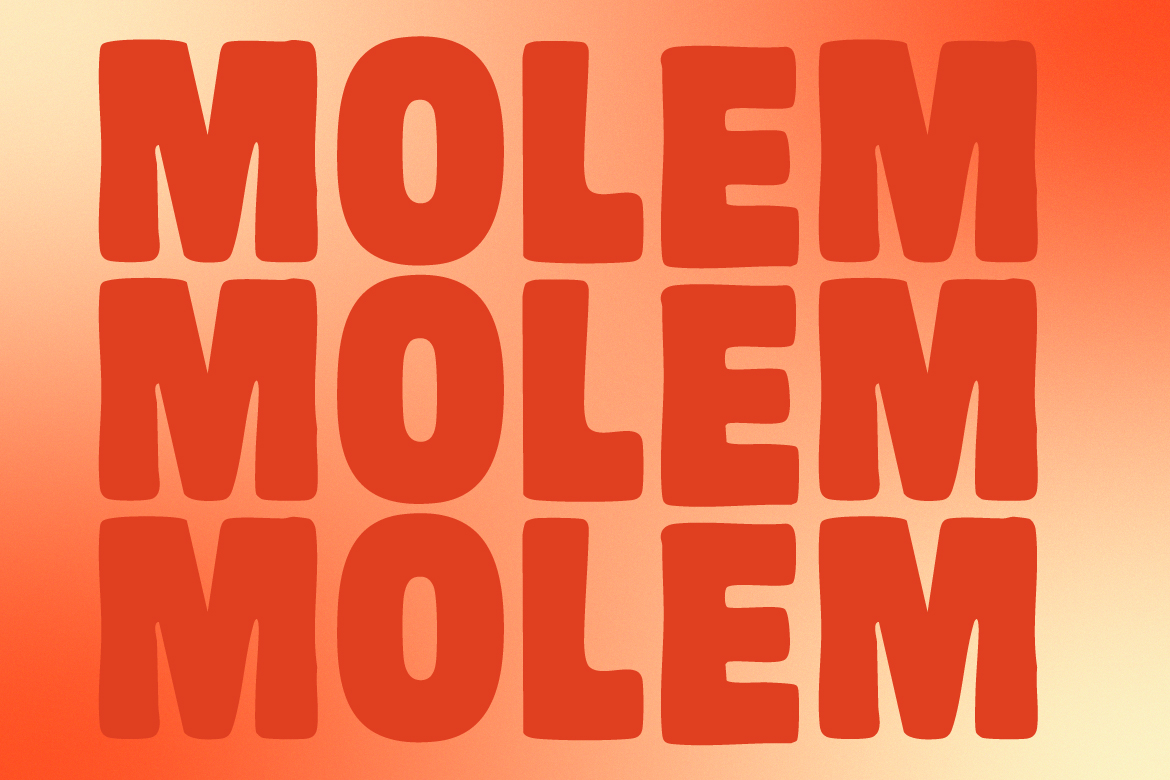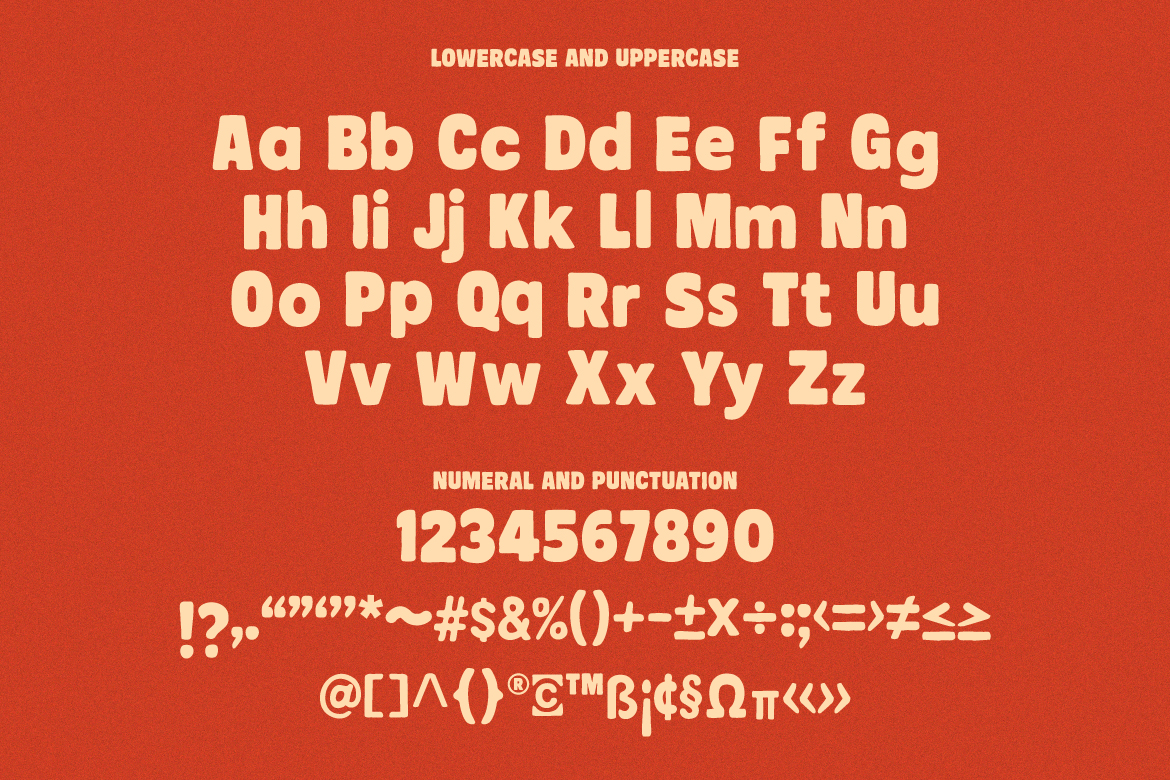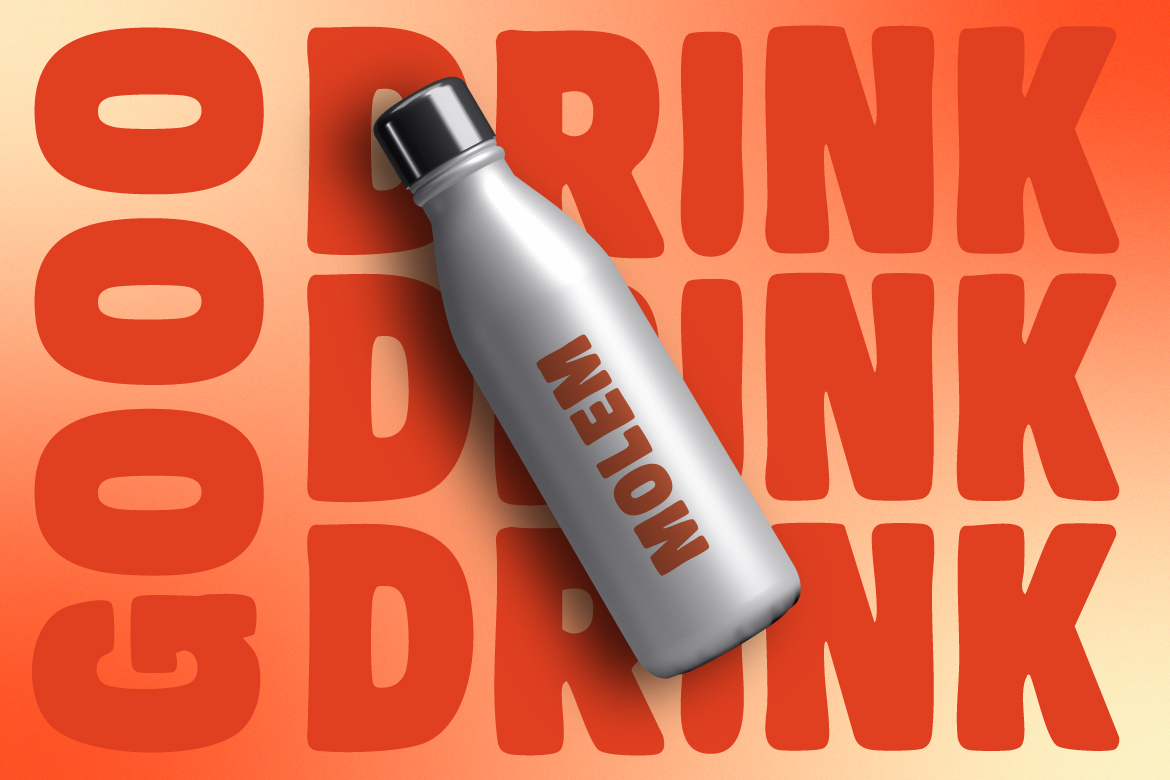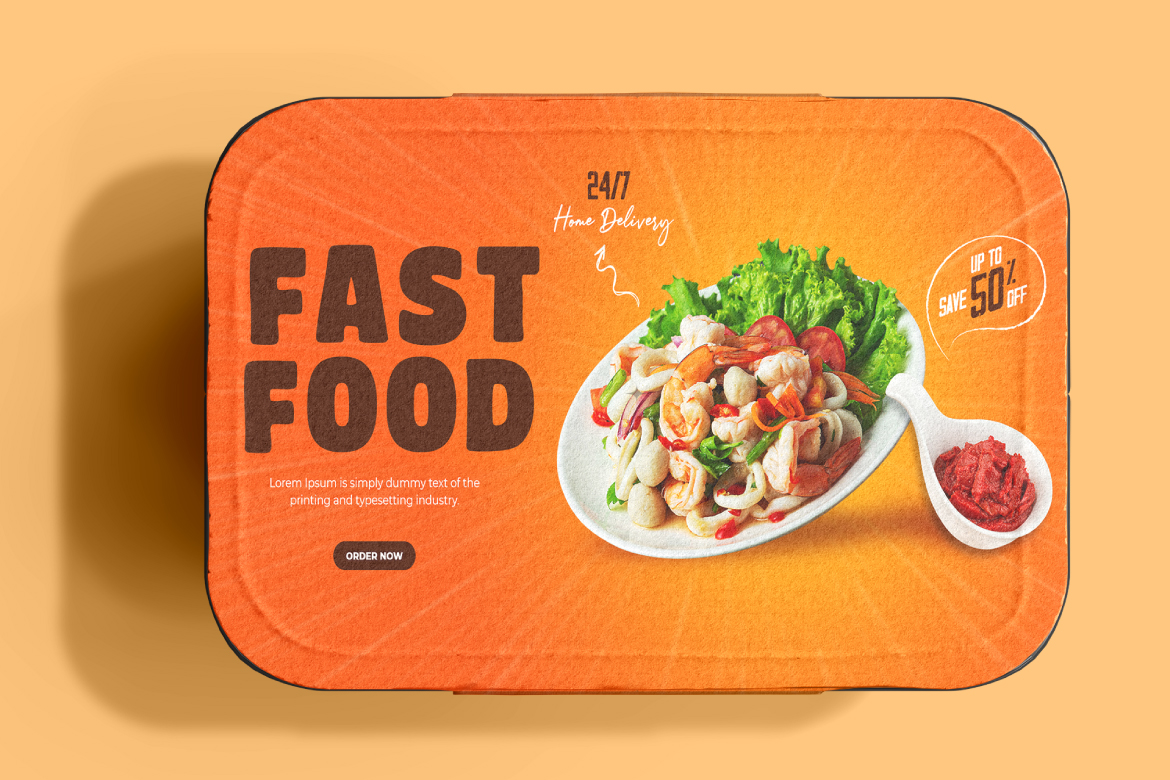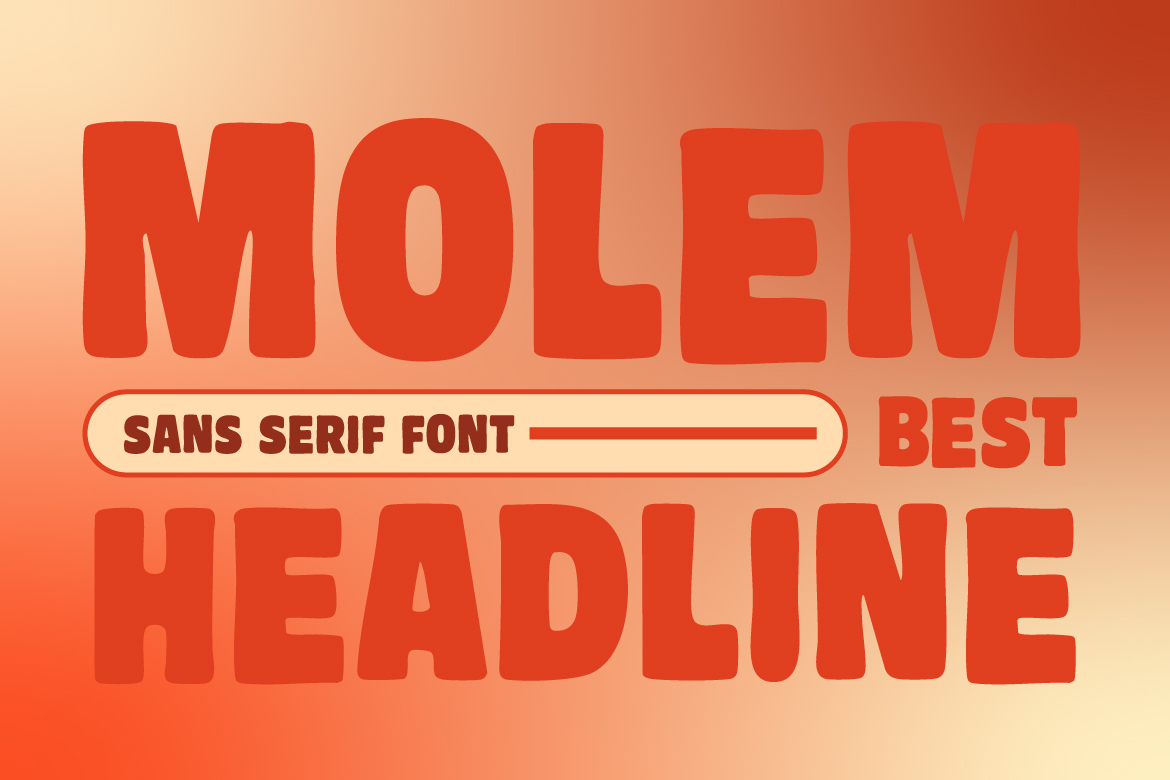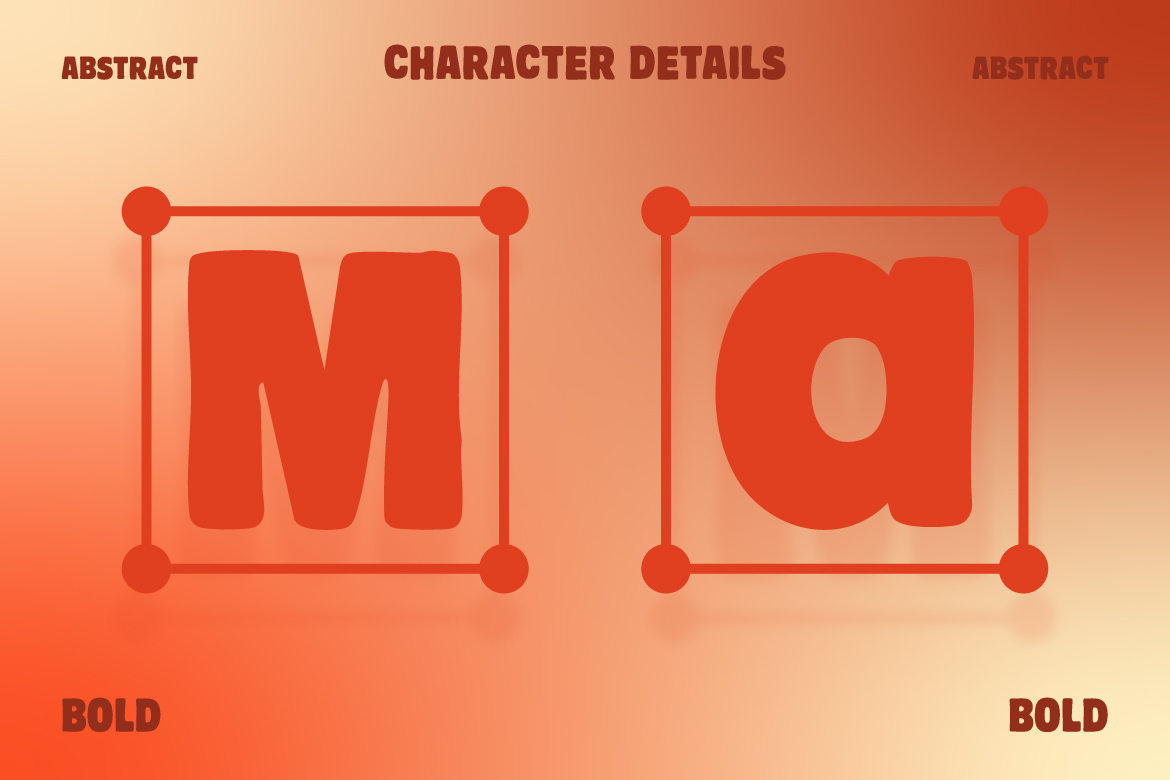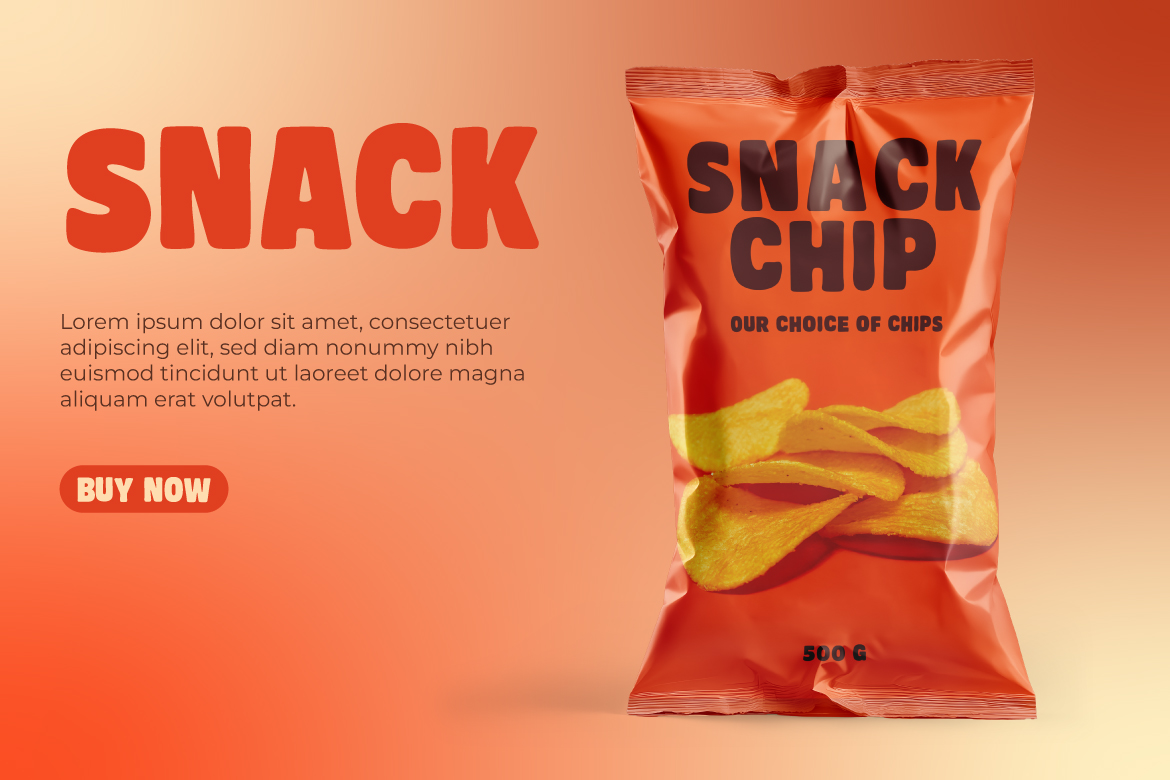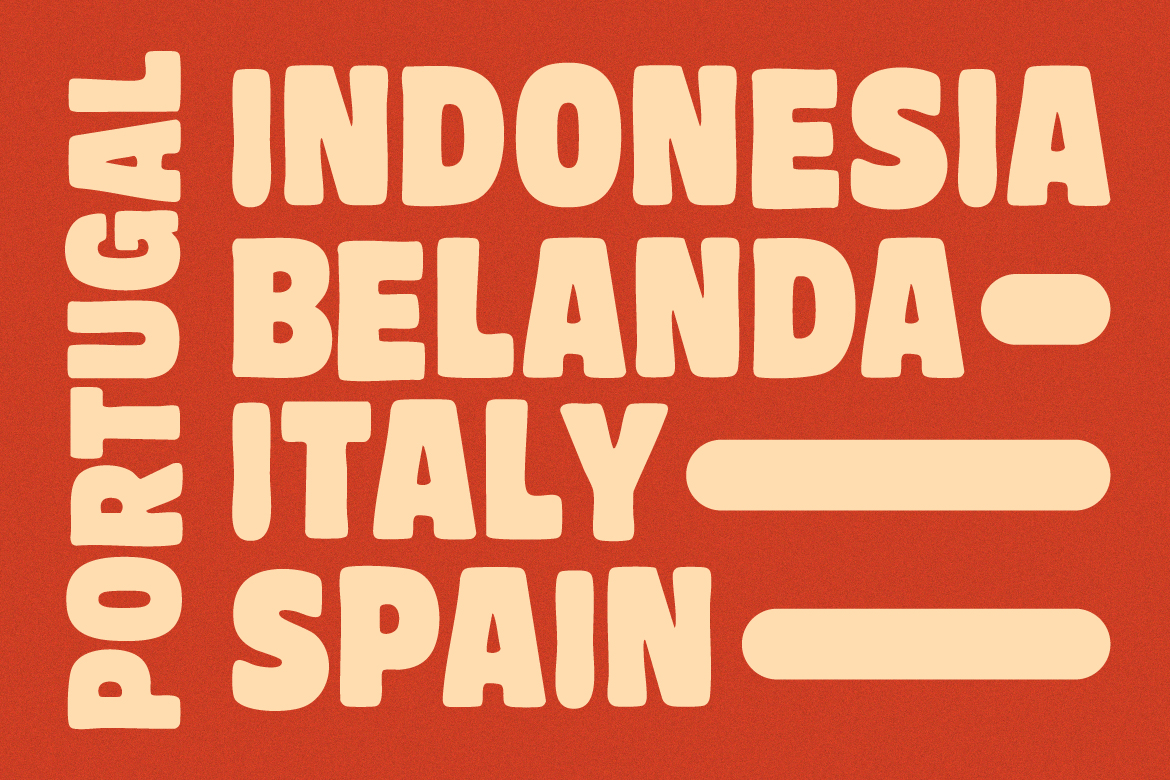
Molem – Bold Retro Display Sans Serif Font
About Molem – Bold Retro Display Sans Serif Font
Molem is a bold and rounded display sans serif font with a strong retro influence. It features thick, soft letterforms that are ideal for use in headlines, posters, children’s content, logos, product packaging, and other visual branding projects.
This font includes uppercase, lowercase, numerals and punctuation. Molem is suitable for both print and digital media, offering a playful yet professional typographic style.